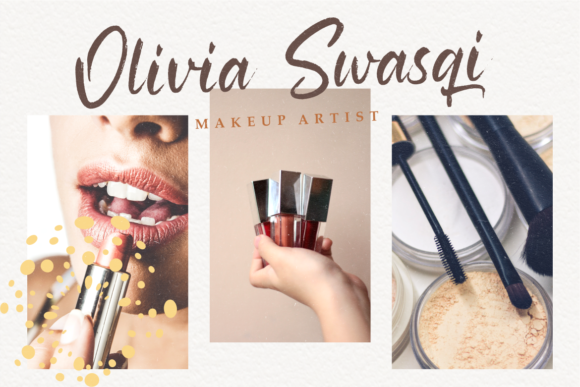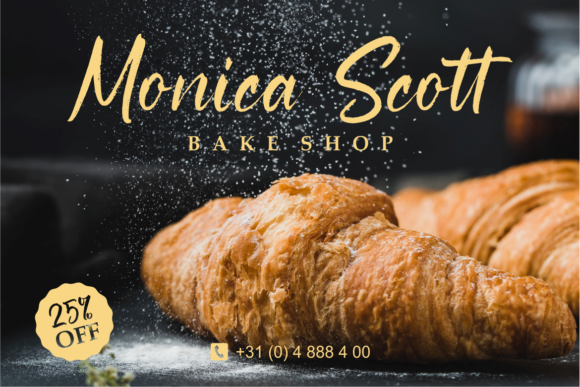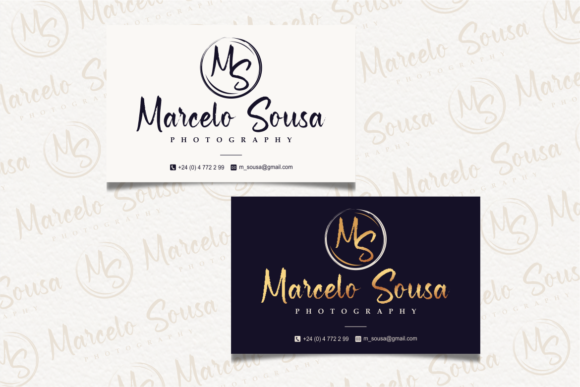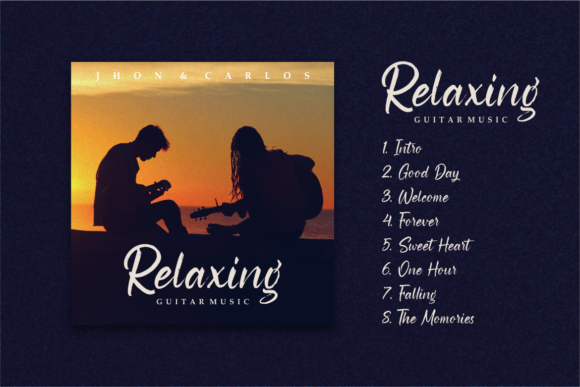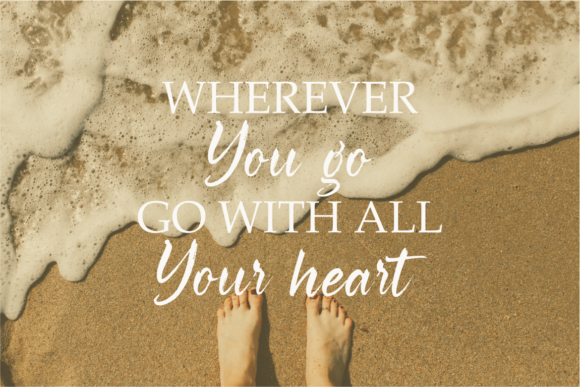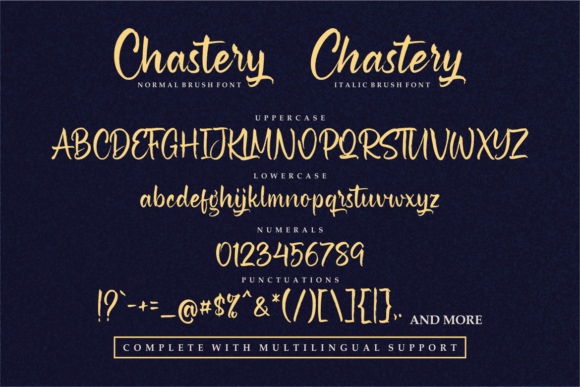
Introducing Chastery Font: The Casual Brush Style Handwritten Font for Authentic Designs
Are you tired of using the same old fonts for your designs? Look no further! Chastery Font is here to revolutionize your creative process with its casual brush style handwritten charm. This beautiful font is perfect for designers and crafters who want to add a touch of authenticity to their work. In this article, we’ll dive into the world of Chastery Font, exploring its features, benefits, and uses.
What is Chastery Font?
Chastery Font is a casual brush style handwritten font that exudes a sense of warmth and personality. Its authentic feel is reminiscent of handwritten notes and letters, making it perfect for designs that require a personal touch. The font’s unique brush strokes and imperfections give it a one-of-a-kind charm that’s sure to capture the attention of your audience.
Features of Chastery Font
So, what makes Chastery Font so special? Here are some of its key features:
- Handwritten style: Chastery Font is a handwritten font that mimics the look and feel of handwritten notes and letters.
- Casual and relaxed: The font has a casual and relaxed vibe, making it perfect for designs that require a laid-back feel.
- Brush style: Chastery Font features brush strokes and imperfections that give it a unique and authentic feel.
- Easy to read: Despite its handwritten style, Chastery Font is easy to read and understand, making it perfect for body text and headings.
Benefits of Using Chastery Font
So, why should you use Chastery Font for your designs? Here are some benefits:
- Adds a personal touch: Chastery Font adds a personal touch to your designs, making them more relatable and engaging.
- Creates a unique look: The font’s unique brush strokes and imperfections create a one-of-a-kind look that’s sure to stand out.
- Perfect for branding: Chastery Font is perfect for branding and packaging designs that require a personal and authentic feel.
- Versatile: The font is versatile and can be used for a variety of designs, from social media graphics to print materials.
Uses of Chastery Font
So, how can you use Chastery Font in your designs? Here are some ideas:
- Social media graphics: Use Chastery Font to create eye-catching social media graphics that stand out from the crowd.
- Branding and packaging: The font is perfect for branding and packaging designs that require a personal and authentic feel.
- Invitations and cards: Chastery Font is perfect for creating invitations and cards that require a personal touch.
- Print materials: The font can be used for a variety of print materials, from brochures to posters.
Tips for Using Chastery Font
Here are some tips for using Chastery Font in your designs:
- Use it sparingly: Use Chastery Font sparingly to create a focal point in your design.
- Pair it with other fonts: Pair Chastery Font with other fonts to create a unique and interesting look.
- Experiment with colors: Experiment with different colors to find the perfect combination that works with Chastery Font.
- Keep it simple: Keep your design simple and clean to let Chastery Font shine.
| Font Name | Chastery Font |
| Author | Vilogsign |
In conclusion, Chastery Font is a beautiful casual brush style handwritten font that’s perfect for designers and crafters who want to add a touch of authenticity to their work. Its unique features, benefits, and uses make it a versatile font that can be used for a variety of designs. By following the tips outlined in this article, you can create stunning designs that showcase the beauty of Chastery Font. So, get inspired by its authentic feel and use it to create beautiful designs!